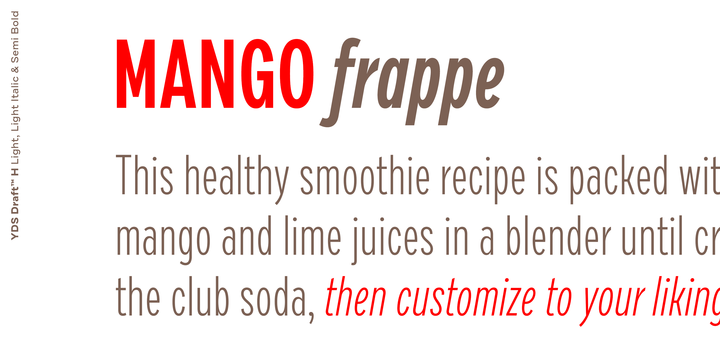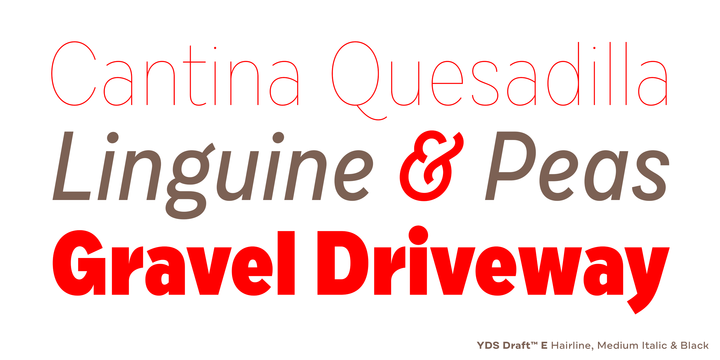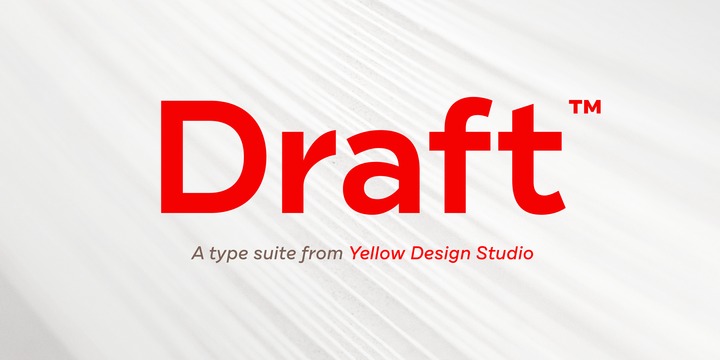
Draft Font Family
Introducing Draft Sans Font! It is designed and shared by Yellow Design Studio. Draft from Yellow Design Studio is a 144-font superfamily that’s friendly and modern with an energetic, enterprising nature. It features nine weights (Hairline to Black) and eight widths (A to H) for ultimate flexibility and fine-grain control. With almost 600 glyphs, Draft offers a full complement of professional typographic features and extensive language support.